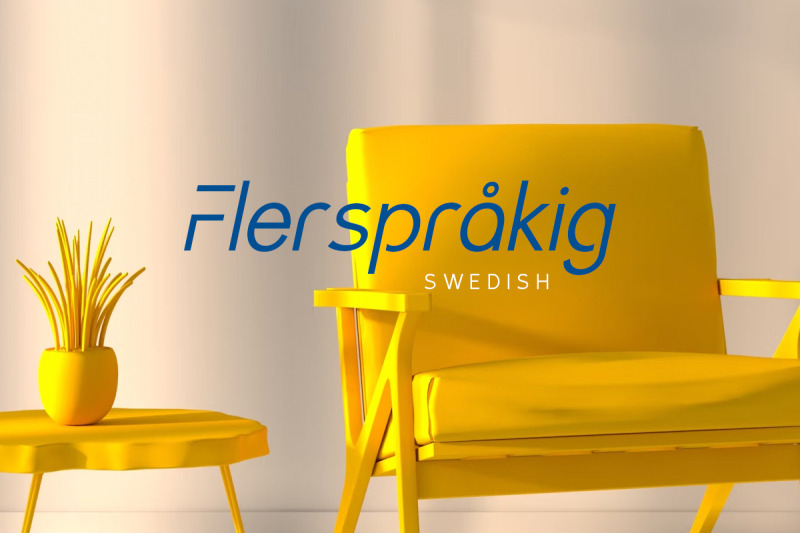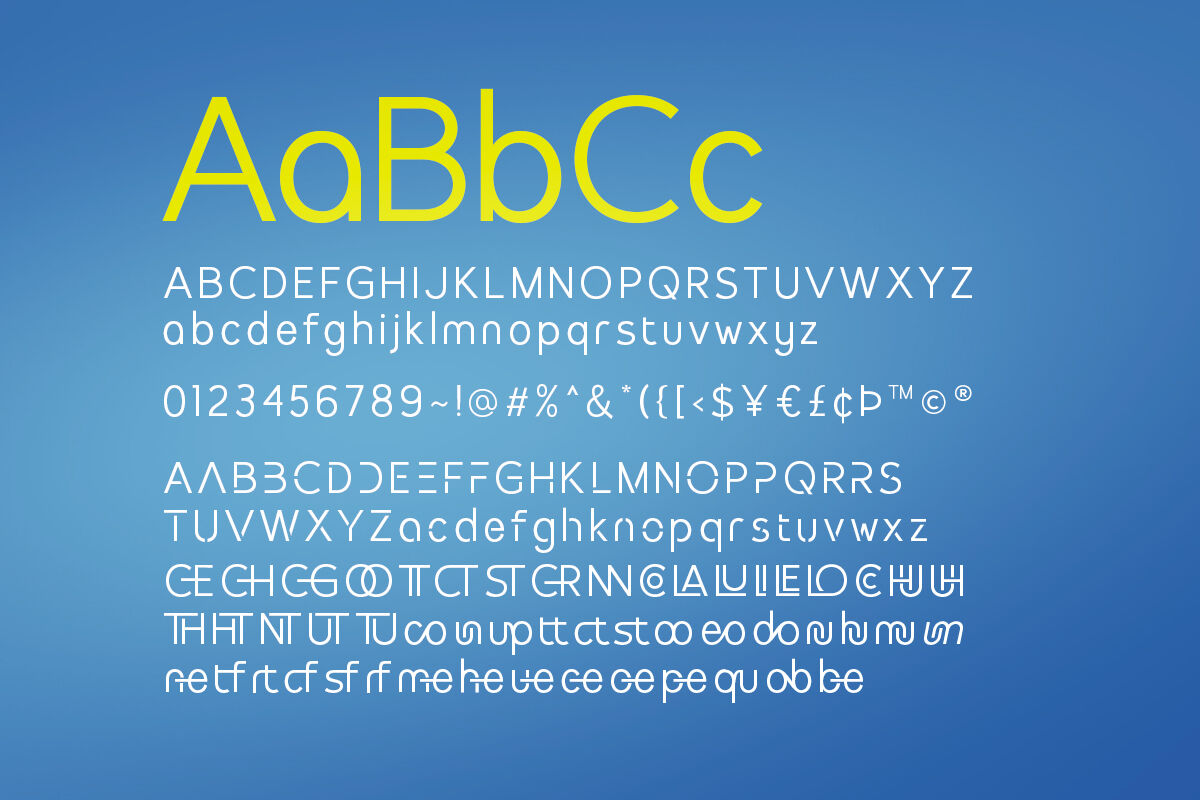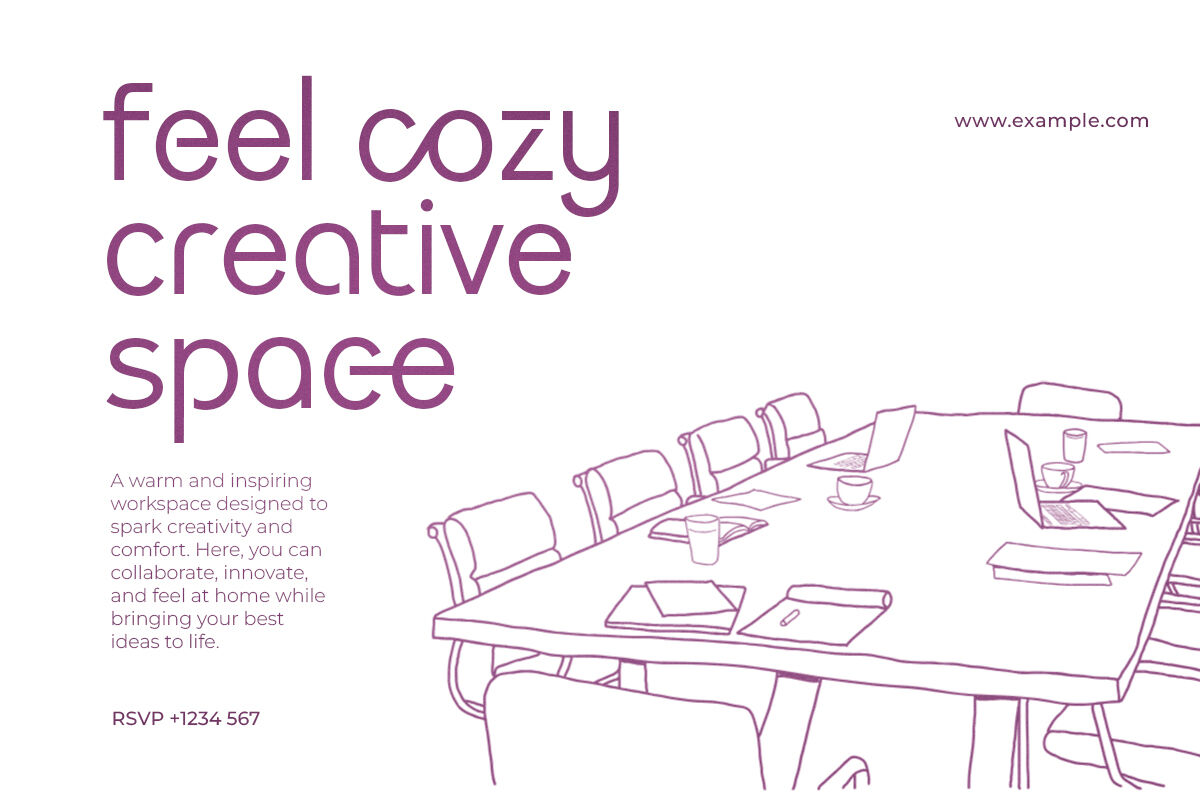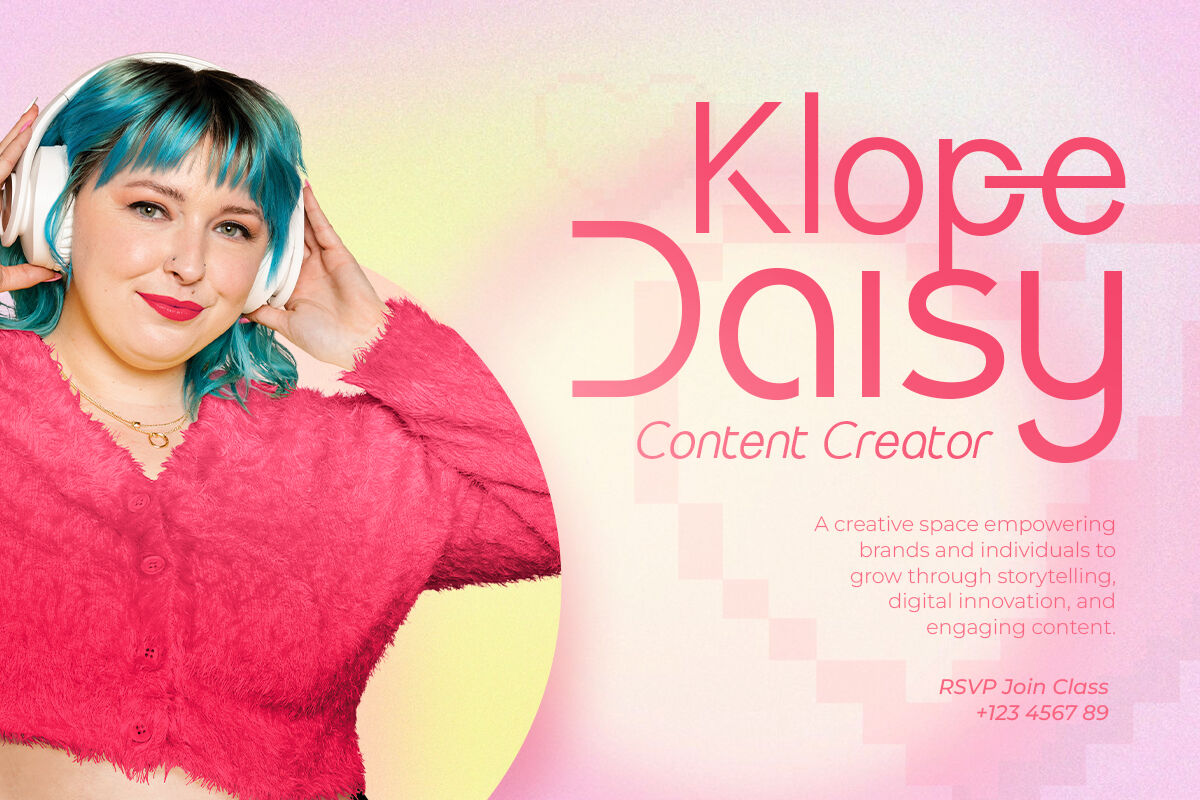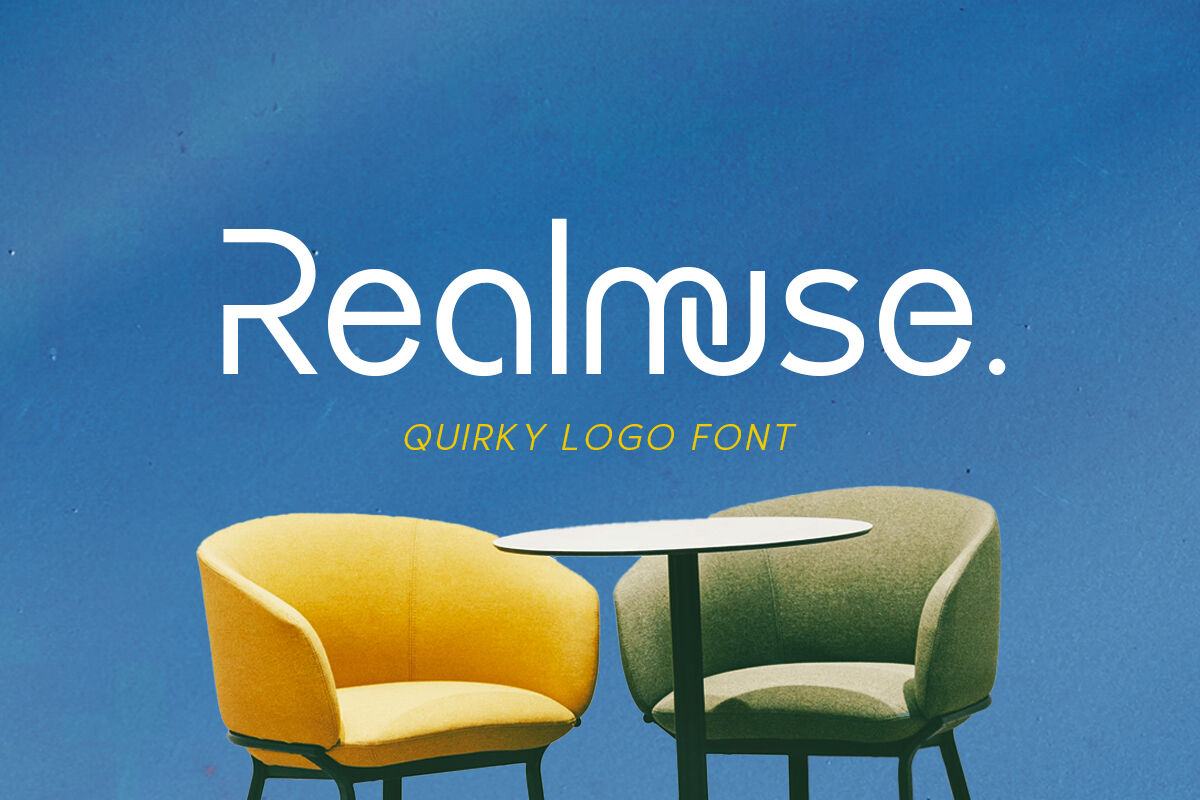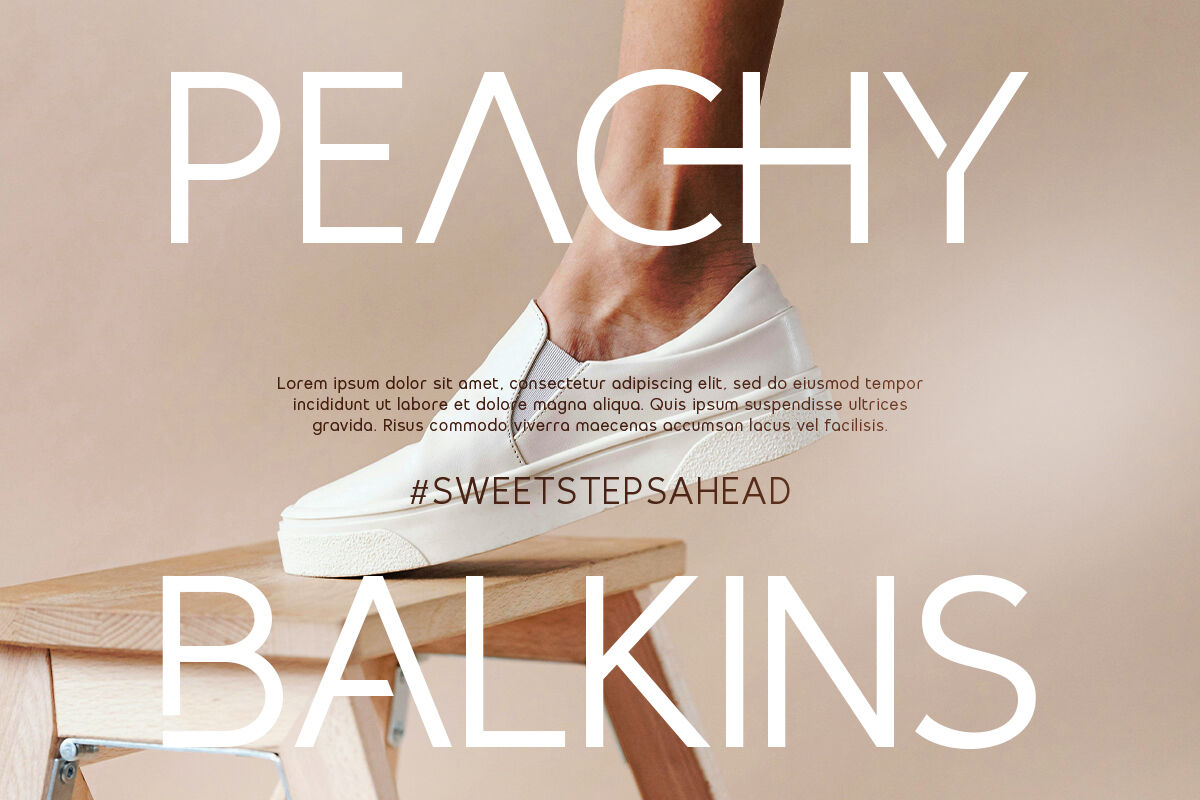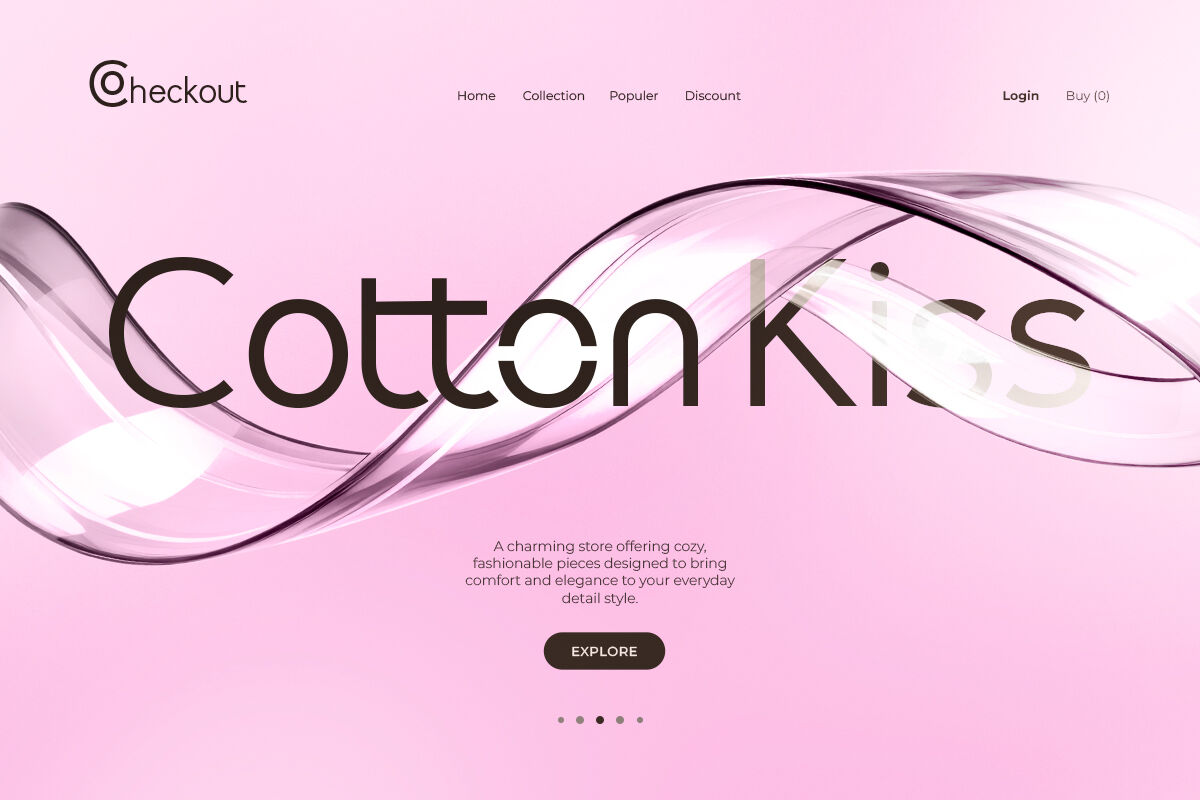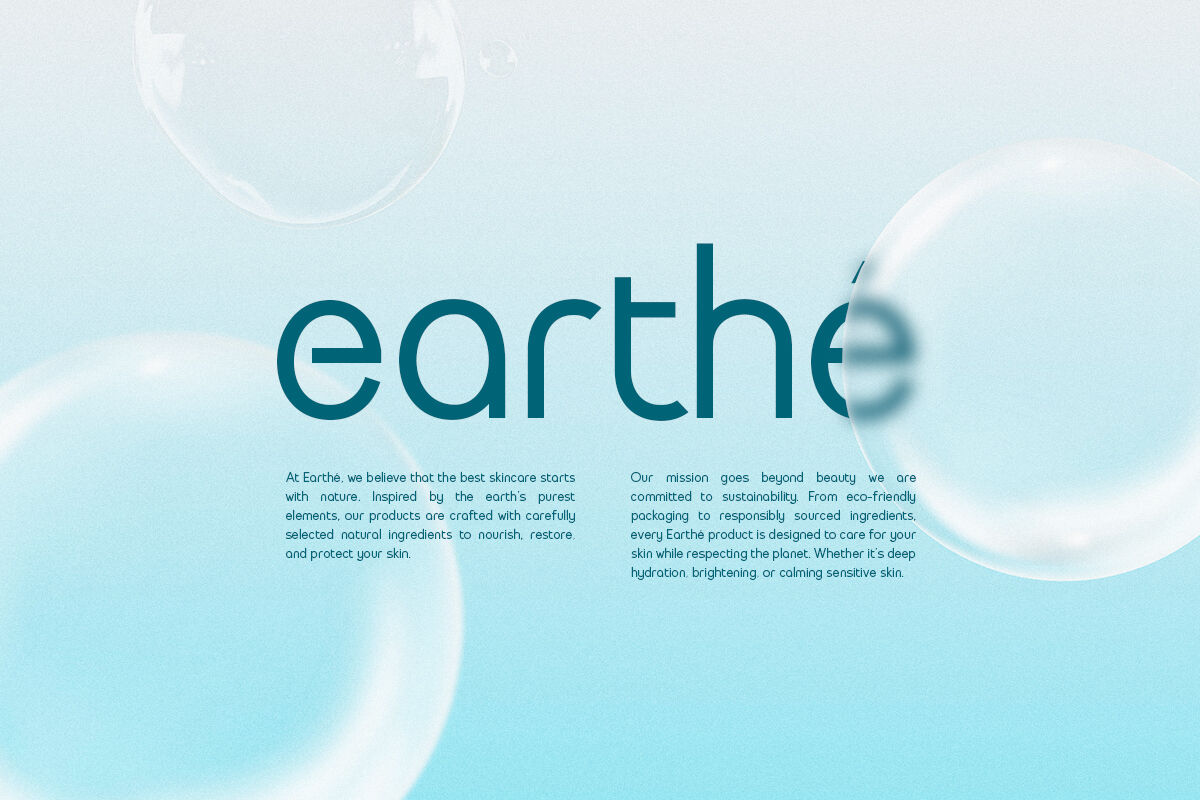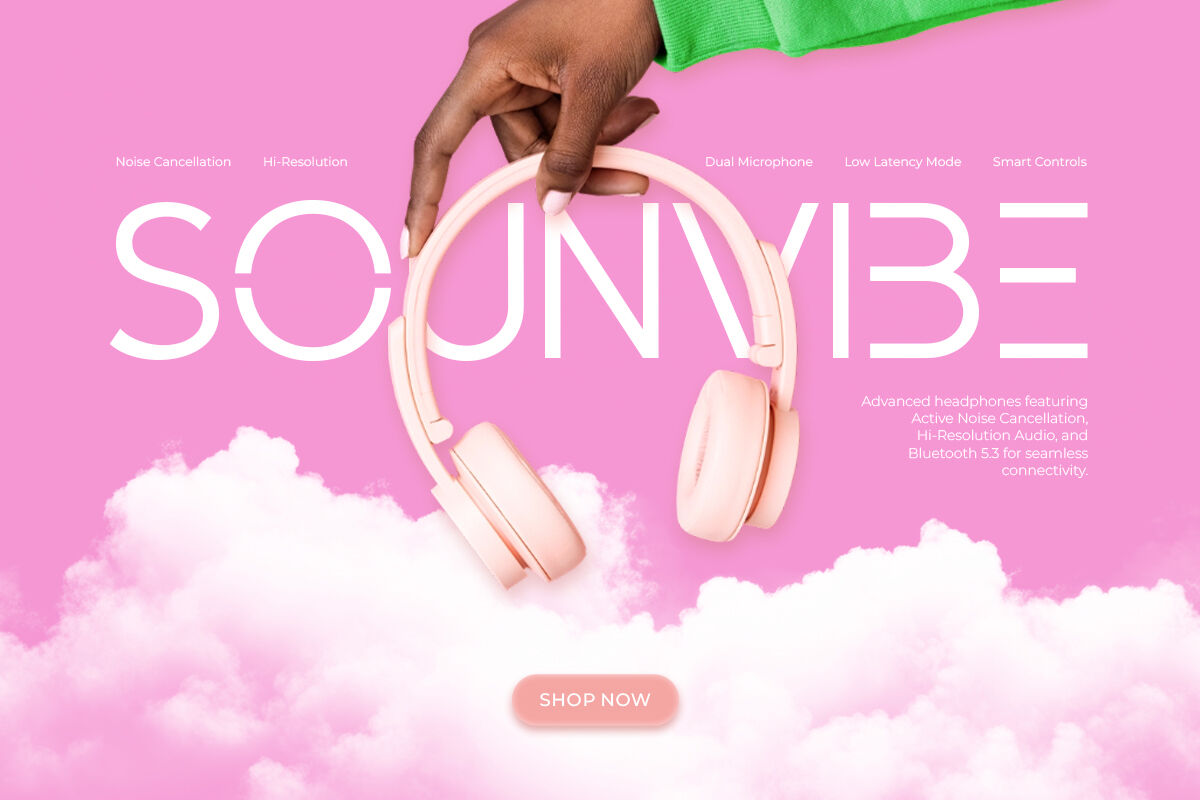
Realmuse - Quirky Logo Font
Realmuse is a quirky logo font based on sans serif. With unique rounded and minimalist look, you can make your logo looks more stunning and modern. This font also have stylish ligatures and stencil alternates that will make your project looks more attractive. You can use this font for branding, logo, and designs. This font also support multilingual.